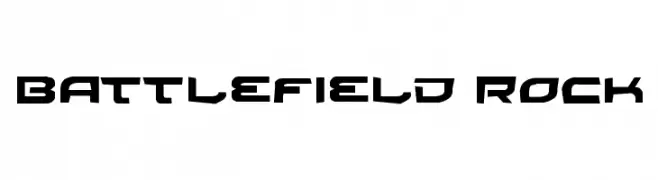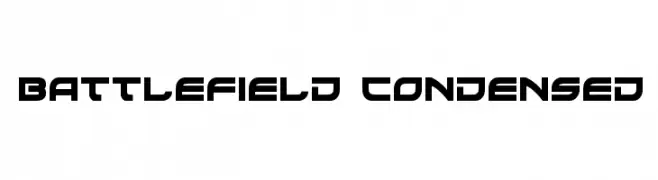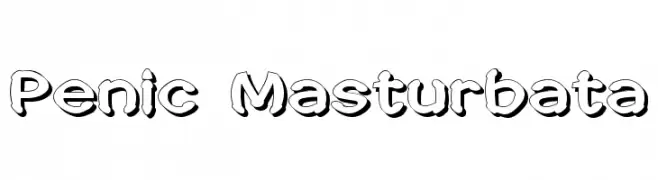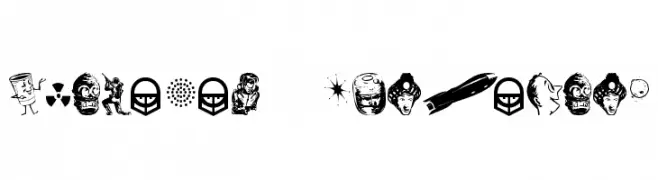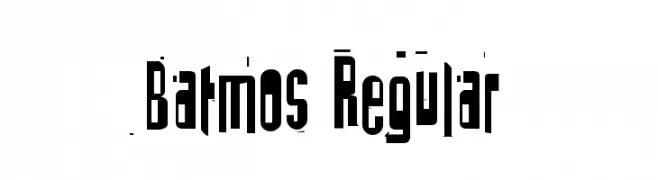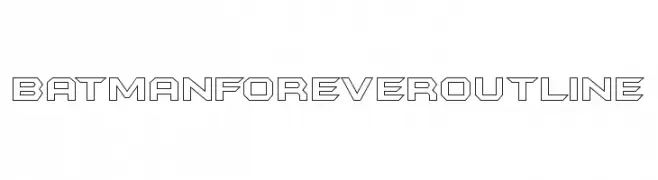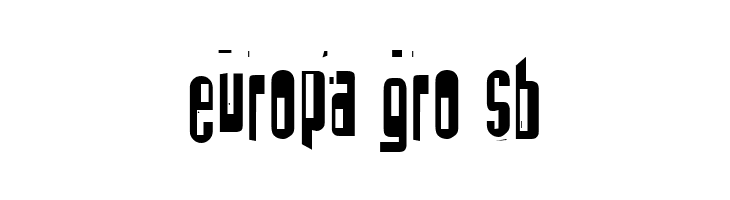
A bold, futuristic font with angular, geometric shapes.
A bold, futuristic font with geometric, angular characters.
A bold, geometric, and condensed font with a futuristic style.
( Fonts by Levi Halmos )
A modern, geometric font with bold, uniform strokes and a structured appearance.
A bold, playful font with a 3D shadow effect and rounded, cartoonish characters.
( Fonts by Buddha Graphix - buddha.graphix.dk/fonts.html )
A bold, condensed font with sharp angles and a modern aesthetic.